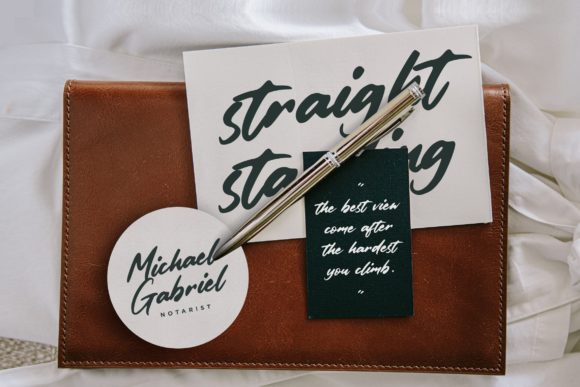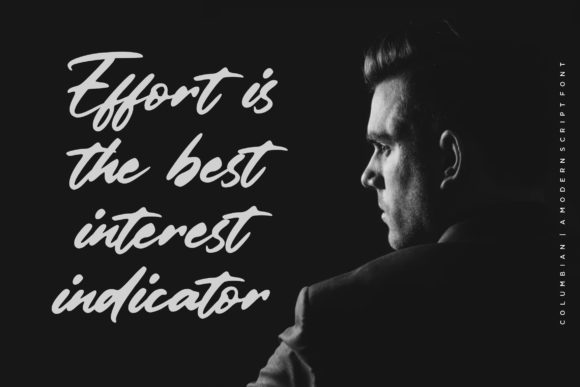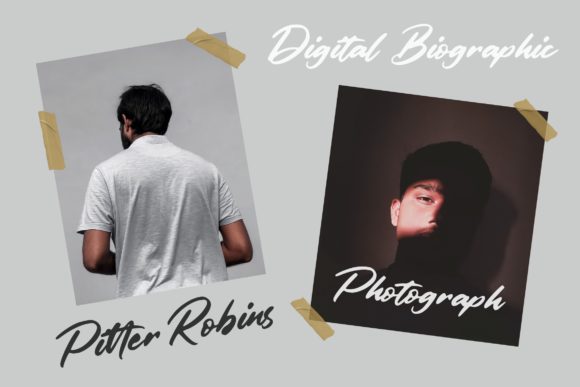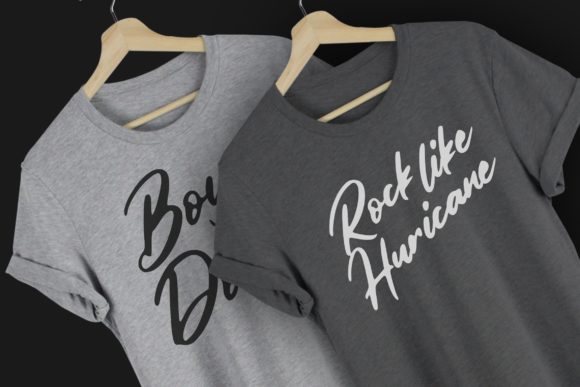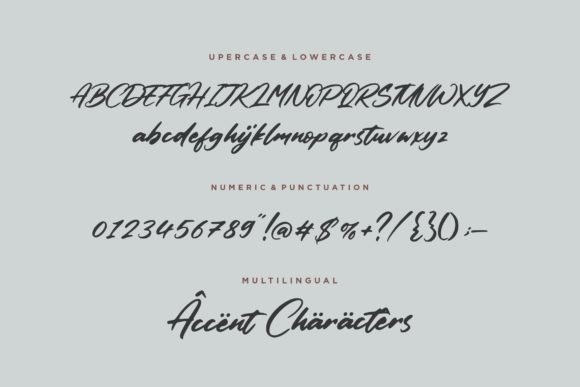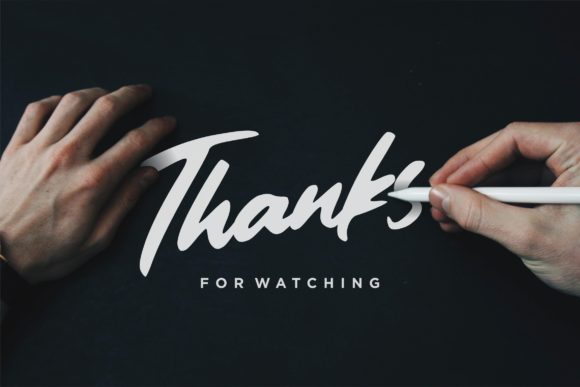
The Elegant Charm of Columbian Font: A Designer’s Delight
I’ll never forget the time I was working on a wedding invitation project, and my client requested a font that exuded elegance and sophistication. I scoured the internet, tried out countless fonts, but nothing seemed quite right. That was until I stumbled upon Columbian Font. ✨ This lovely and delicate script font instantly captured the essence of what I was looking for – a beautiful and refreshing look that would make my design stand out.
A Personal Review of Columbian Font
- ✨ Elegant and refined strokes that add a touch of sophistication to any design
- 💫 Beautifully crafted to evoke a sense of luxury and class
- 🎨 Versatile and can be used for a variety of design projects, from wedding invitations to branding and packaging
While Columbian Font is an excellent choice for many design projects, there are a few things to keep in mind:
- ⚠️ May not be the best choice for very large or bold designs, as it can lose its delicate charm
- 🤔 Limited availability of certain OpenType features, which may limit its use in certain design software
One of the standout features of Columbian Font is its support for OpenType features and glyphs. These features allow you to add an extra layer of creativity to your design, from stylistic alternates to ligatures and more.
The Backstory of Columbian Font
Columbian Font was designed by a team of typographers who wanted to create a font that would evoke a sense of elegance and sophistication. Inspired by classic calligraphy and handwriting, they crafted a font that would be both beautiful and refined.
The design team spent countless hours perfecting the strokes, curves, and lines of Columbian Font, ensuring that it would be a versatile and elegant choice for any design project.
Q: Is Columbian Font available in different weights or styles?
A: Currently, Columbian Font is available in a single weight and style. However, the design team may release additional weights or styles in the future, so be sure to check for updates.